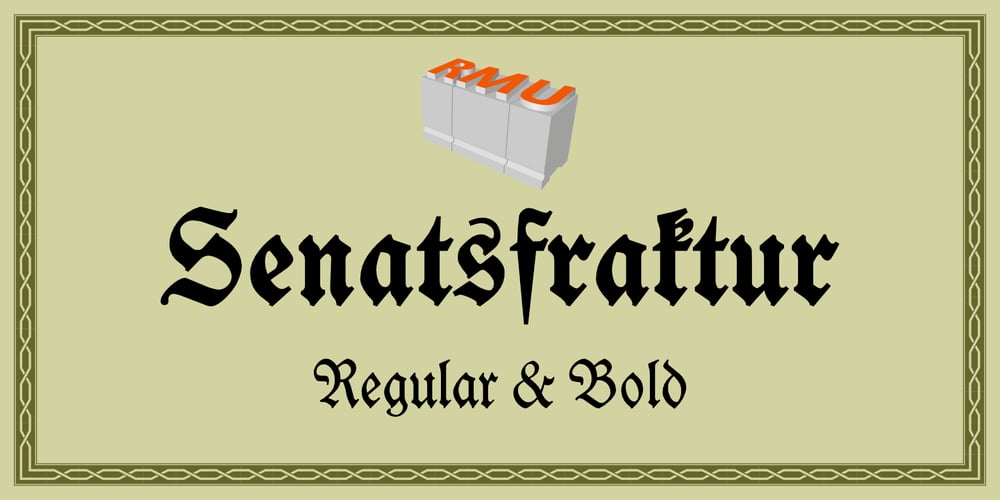
Senatsfraktur
Senatsfraktur font
Senatsfraktur Font Family was designed by Ralph M. Unger and published by RMU. Senatsfraktur contains 2 styles and family package options. Friedrich Bauer’s Senatsfraktur, coming in two styles, regular and bold, released by Genzsch and Heyse, Hamburg, in 1912, has come to life again.Both styles contain the traditional long s which can be accessed by either the OT feature historical alternatives or by typing [alt] + b. To get access to all ligatures, it is recommended to activate both Standard and Discretionary Ligatures.